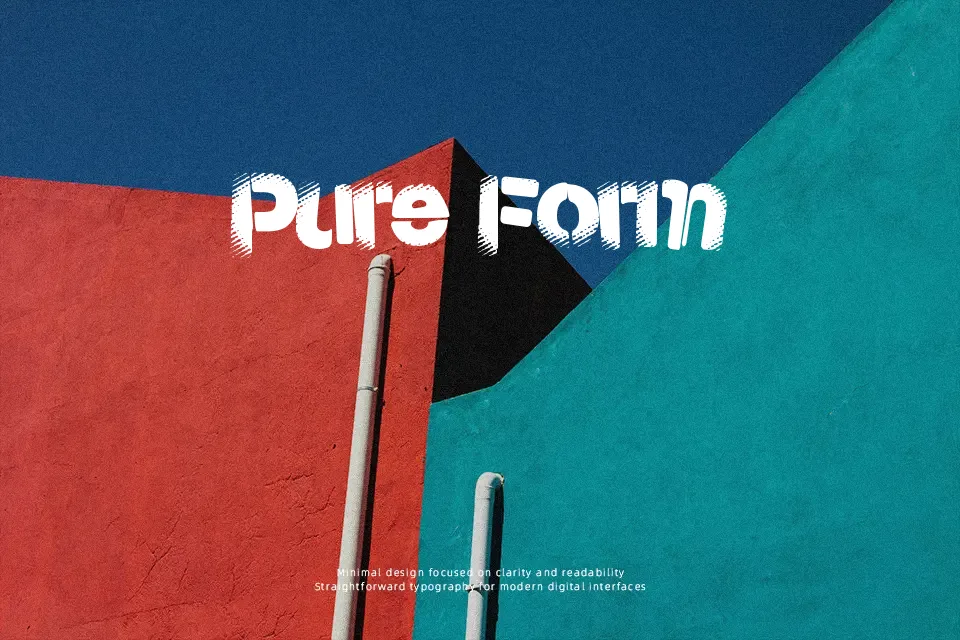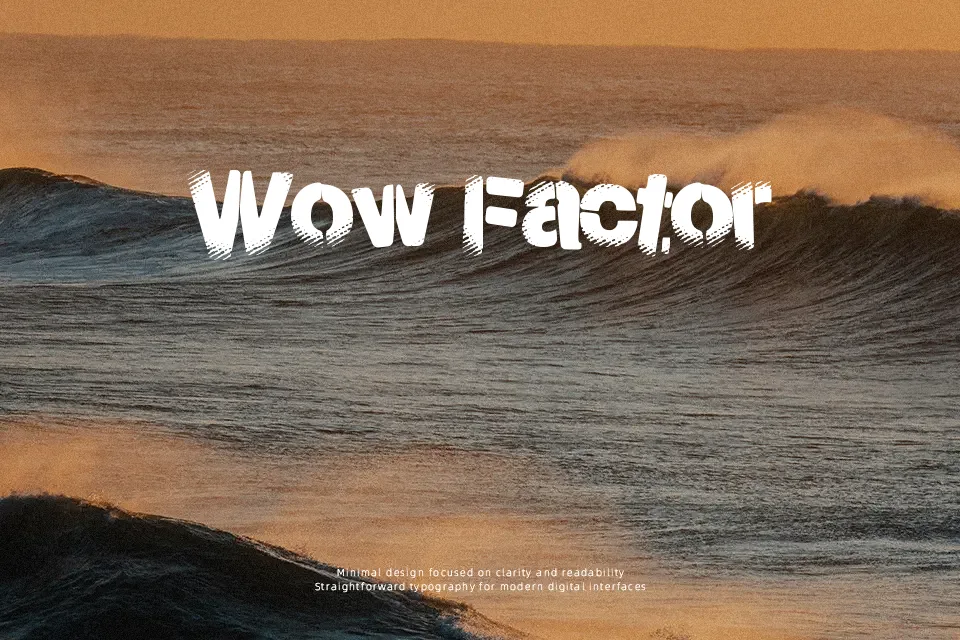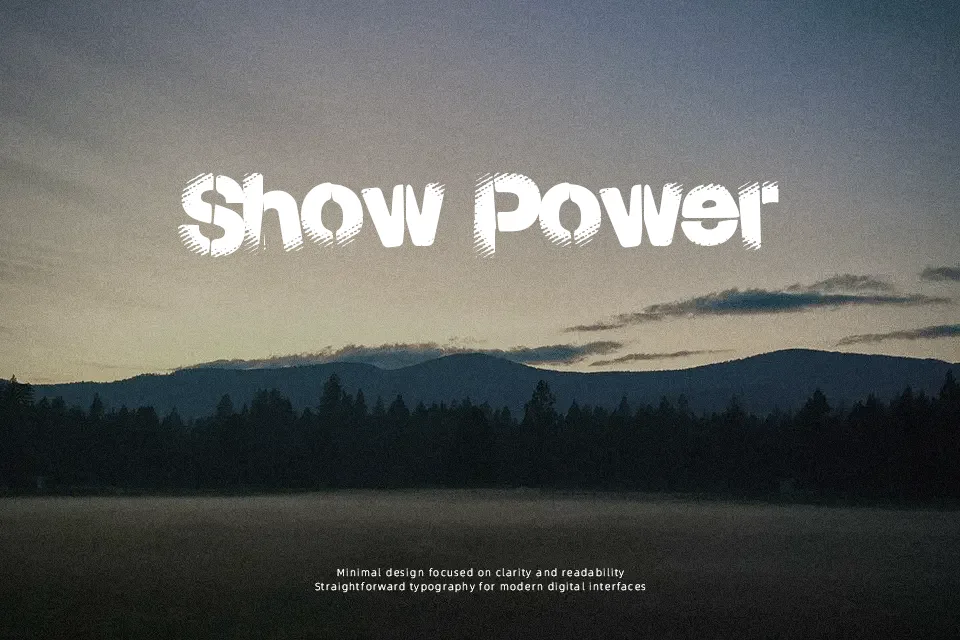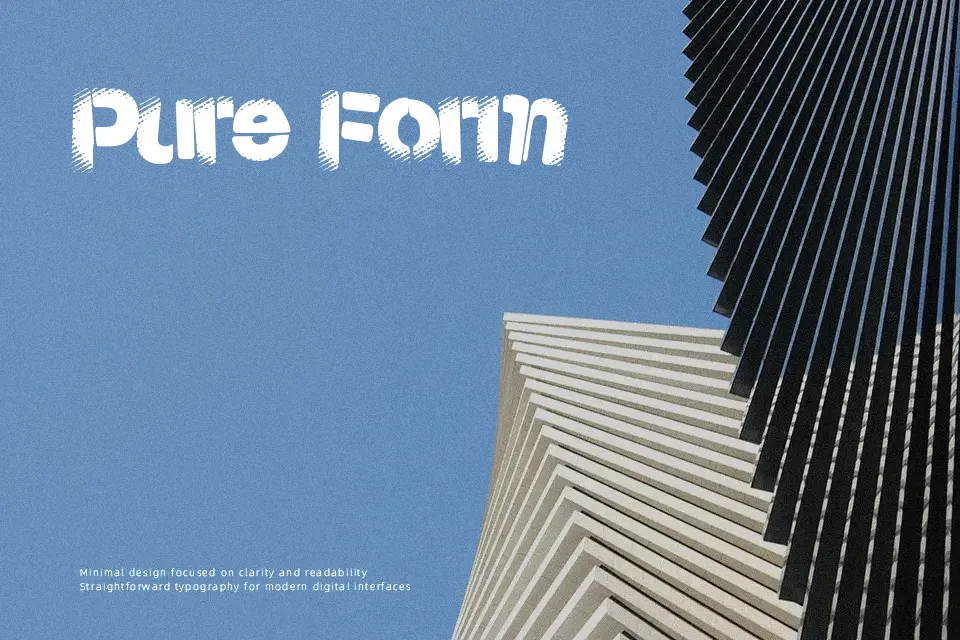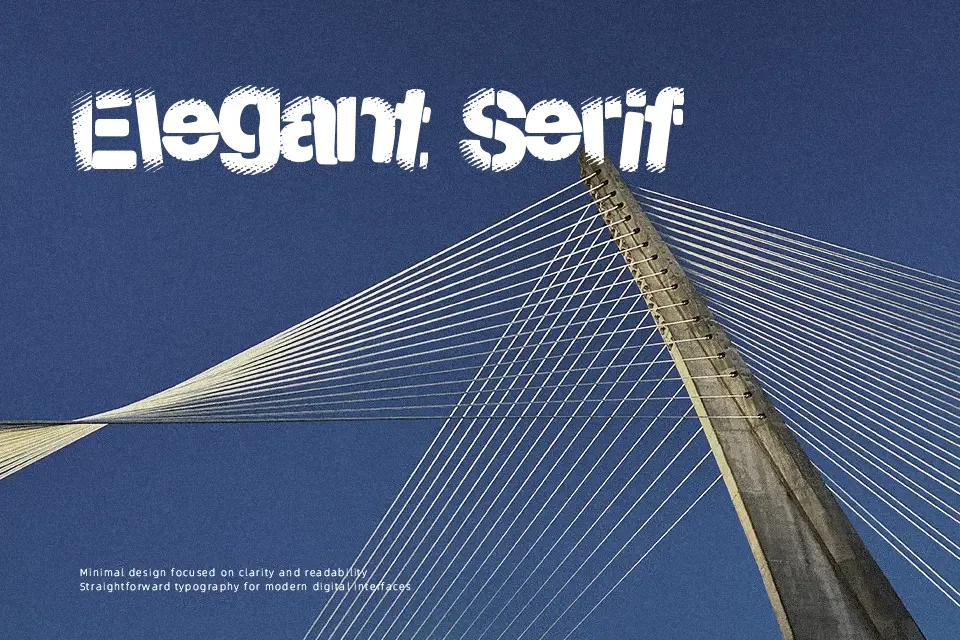
Toxic Powers Font
Toxic Powers Font presents a rugged stencil aesthetic characterized by thick, uniform strokes and prominent structural breaks across every character. The letterforms exhibit squarish, condensed proportions with firm right angles that reinforce an austere, industrial sensibility. Tight horizontal spacing ensures cohesive headline blocks, though the narrow tracking and heavy dark-to-light contrast significantly reduce legibility at smaller text sizes. While the design commands instant attention on esports jerseys, hazard warning placards, and action game promotional banners, dense letter construction prevents comfortable continuous reading. For production work, keeping headline strings brief allows the bold silhouette to assert authority without overwhelming neighboring graphical elements.
Best For: military-themed event posters, video game title screens, industrial product packaging, combat sports apparel graphics
Not Ideal For: continuous book body text, small mobile interface labels, dense legal documents, formal corporate correspondence
Perfect for gaming, headline, and logo, with a bold and display style.